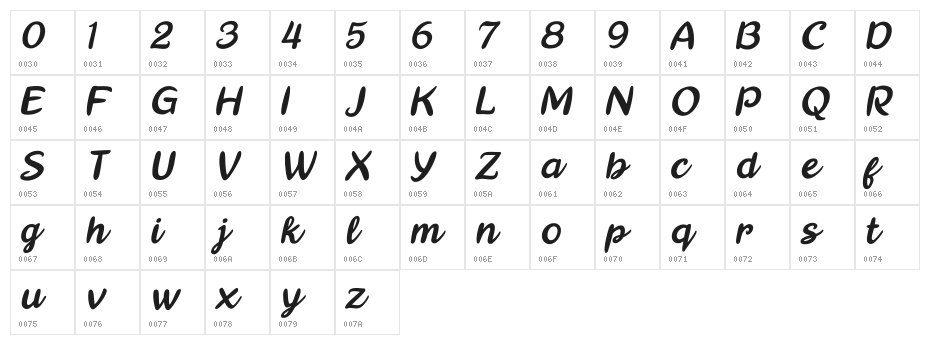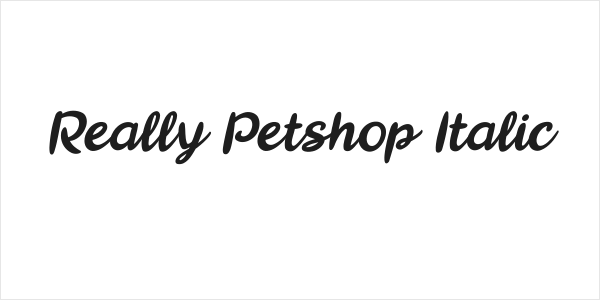
Really Petshop Italic Font
Really Petshop Italic Description
This font features a playful and dynamic script style with a smooth, flowing appearance. The characters are slightly slanted, giving it an italicized look that adds a sense of motion and energy. The strokes are bold and rounded, providing a friendly and approachable feel. The uppercase and lowercase letters maintain a consistent style, with the lowercase letters exhibiting a slightly more casual and connected form. The numerals are clear and legible, matching the overall style of the alphabet. Special characters are included, maintaining the same playful and bold characteristics. This font is well-suited for projects that require a lively and informal touch.
| Use Case | Logos, Headlines, Informal Invitations |
| Proposed Projects | Ideal for branding, packaging, greeting cards, and playful advertising campaigns. |